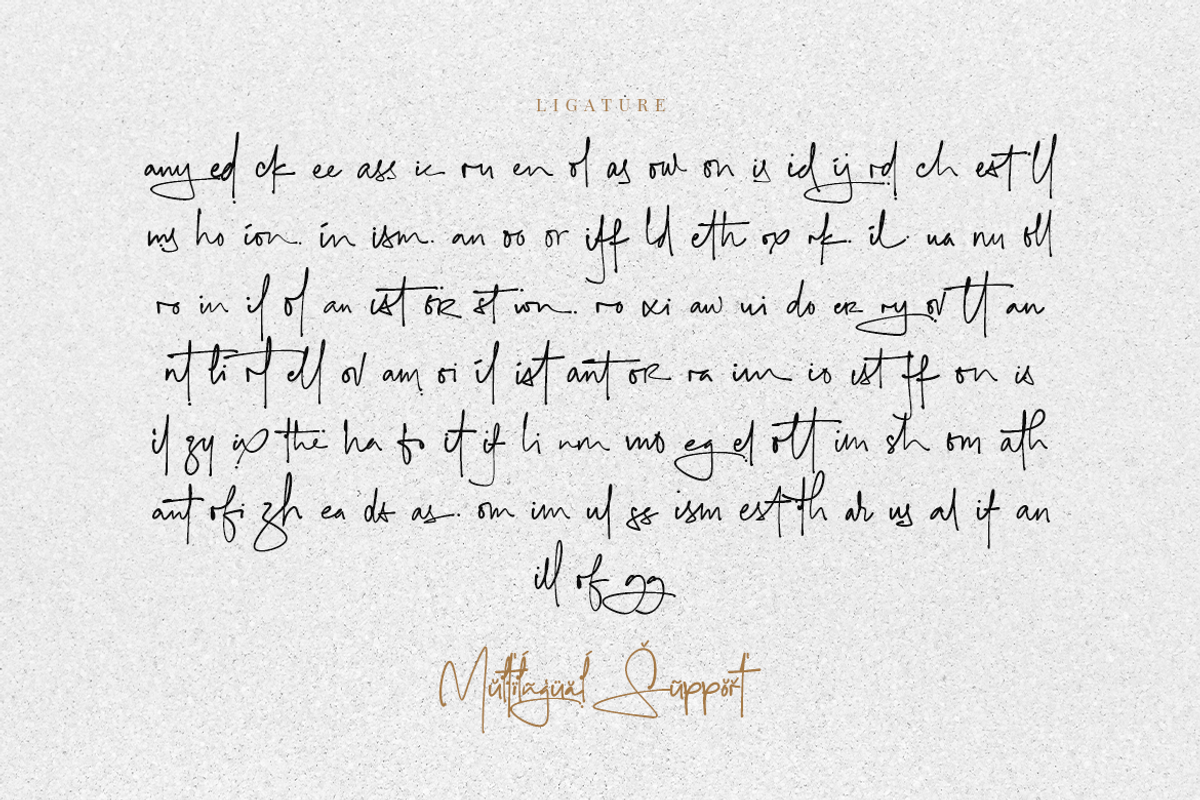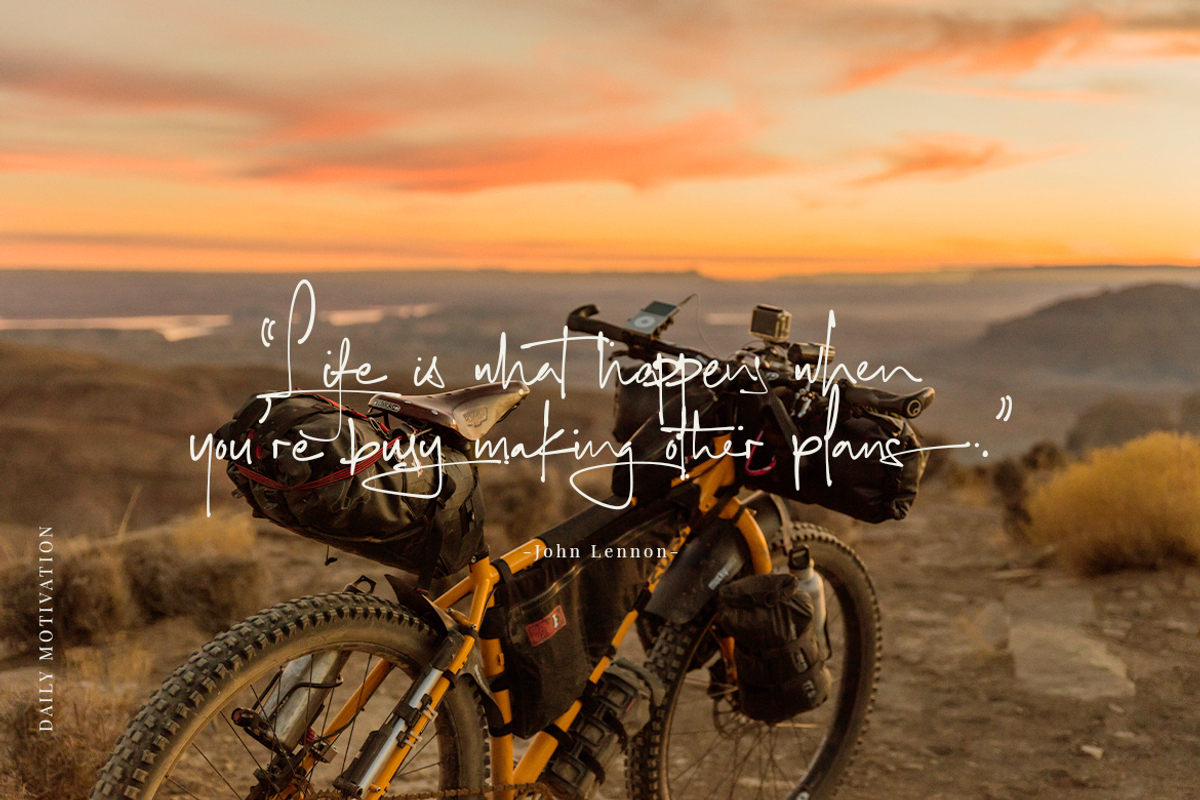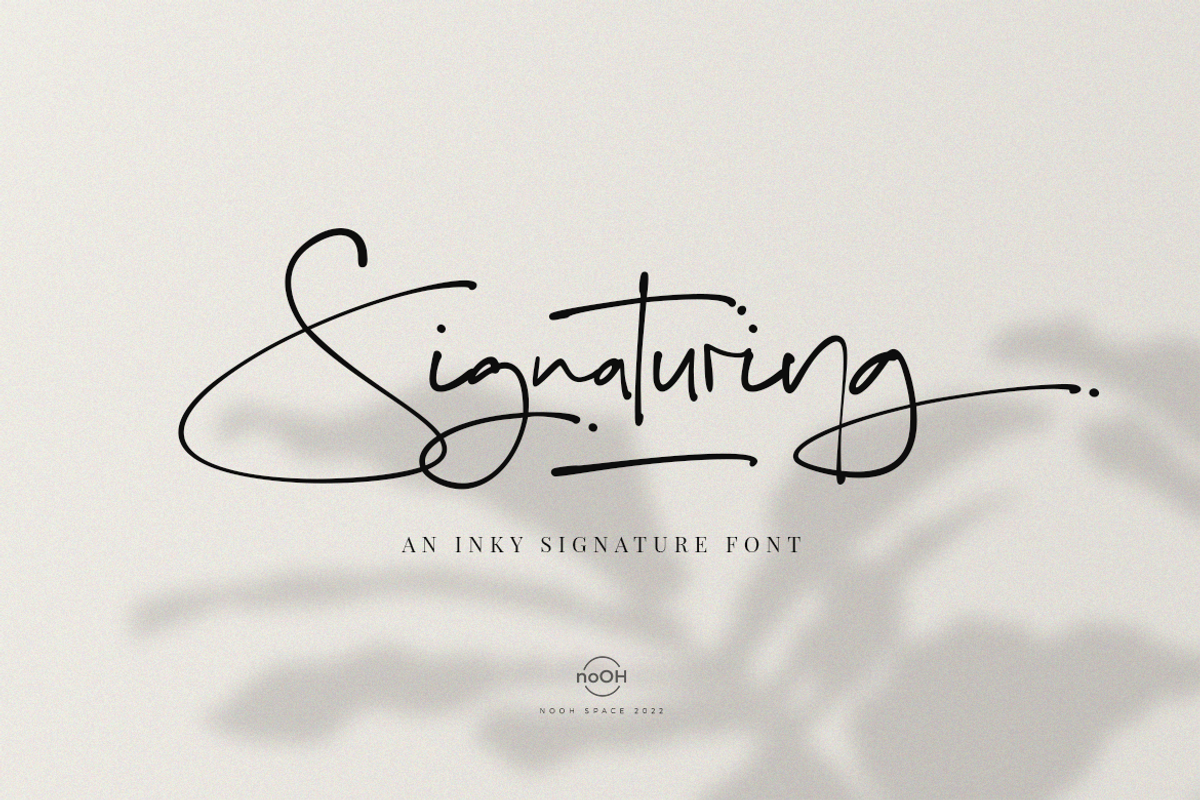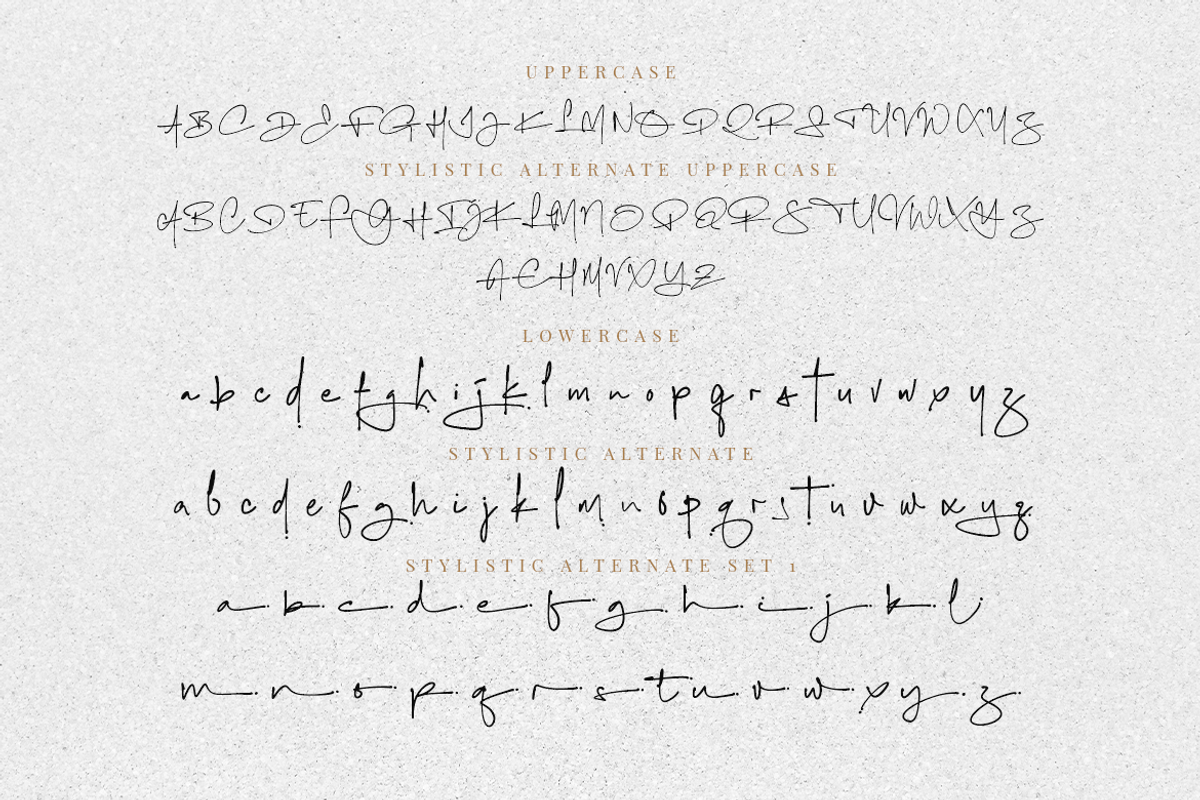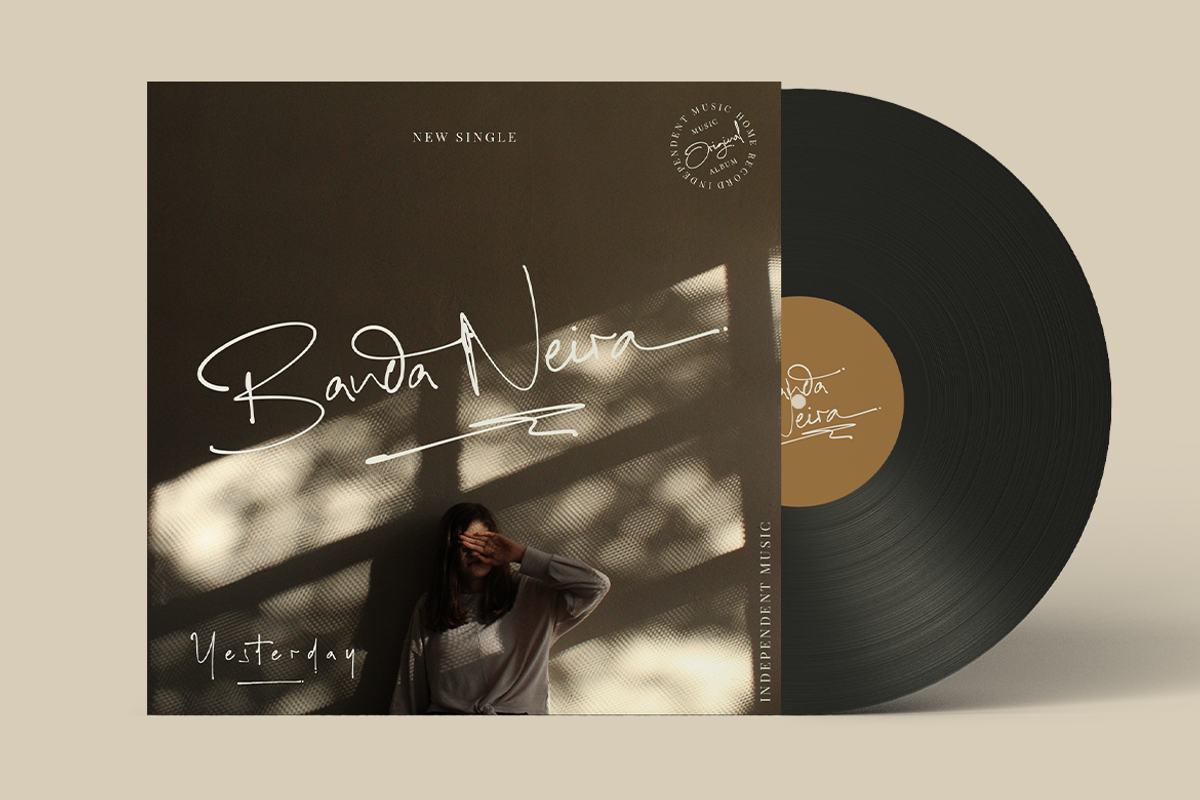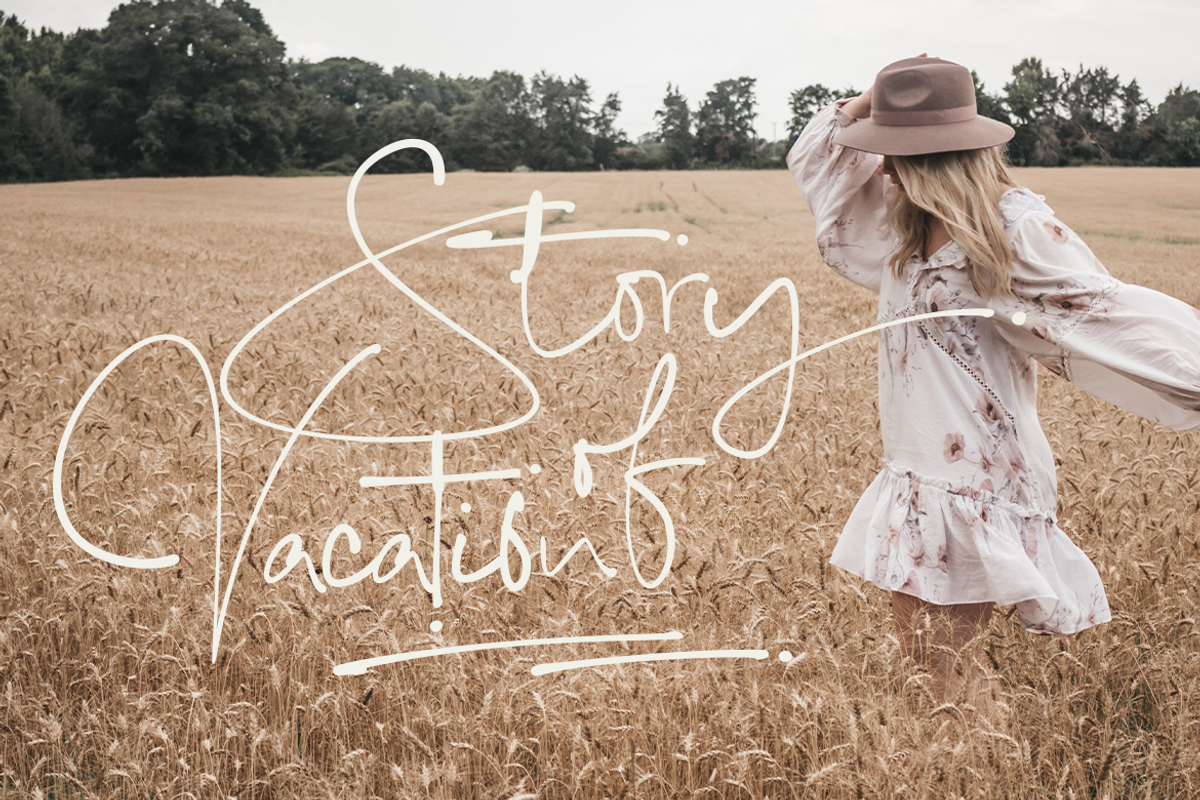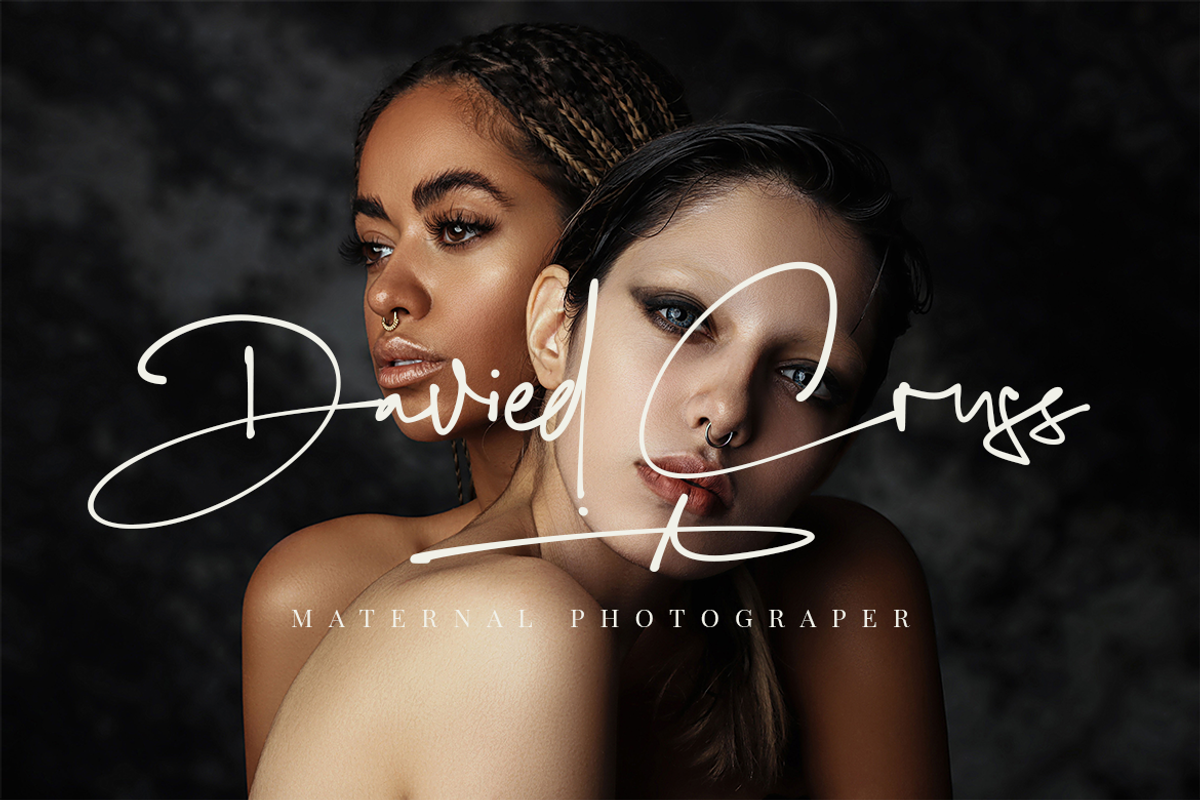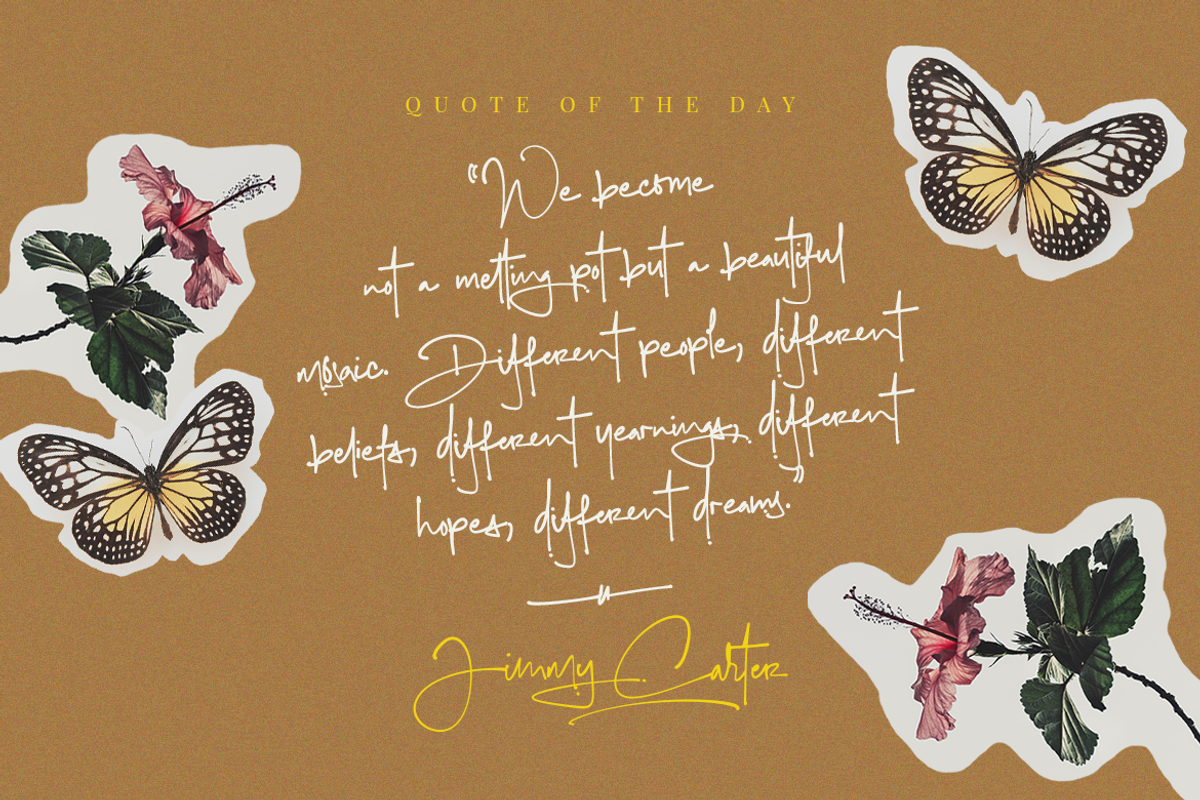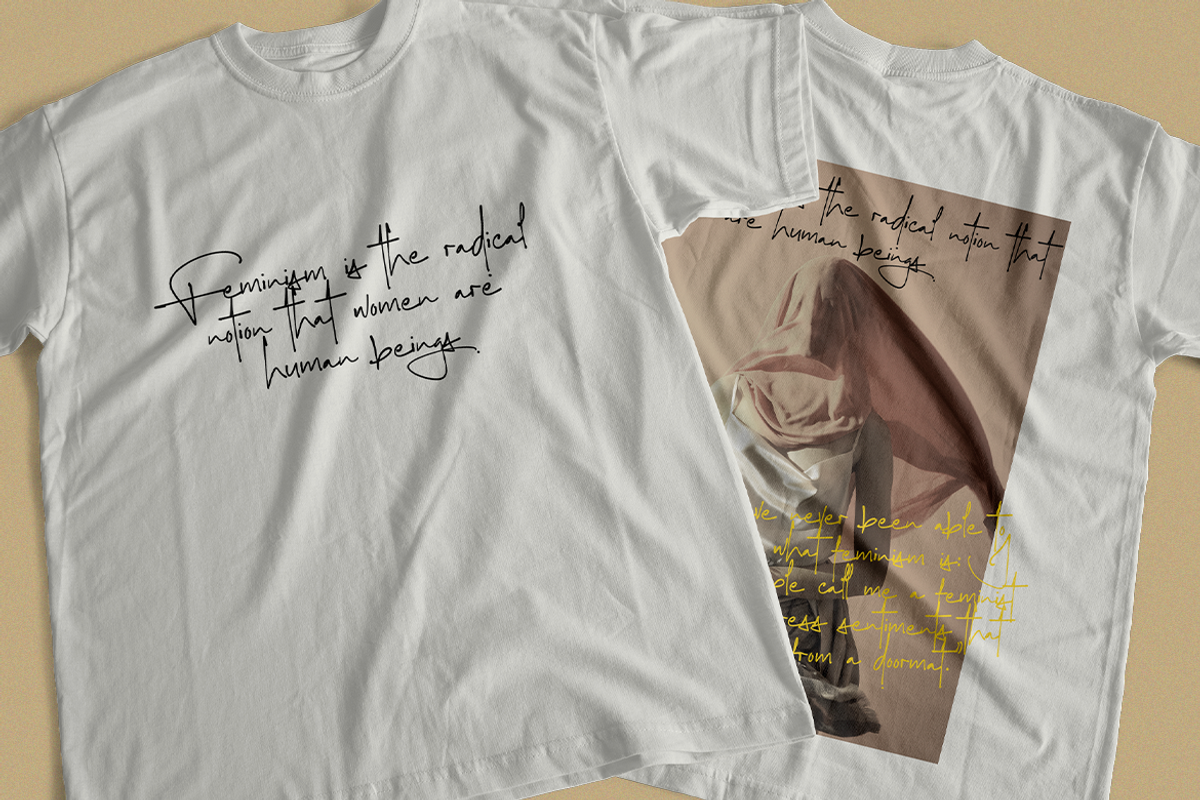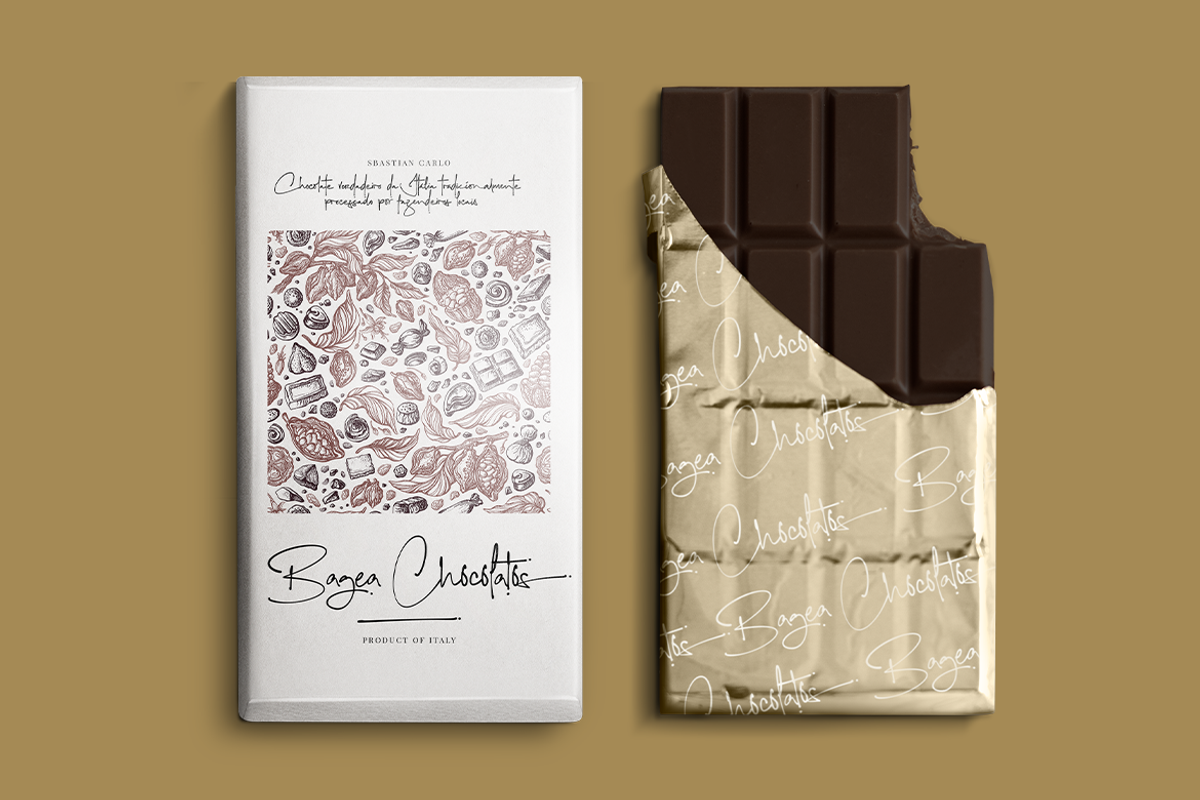
Signaturing - An Inky Handwritten
Signaturing is an Inky Signature font that is suitable for design projects; authentic theme, classic theme, wedding, branding, poster, quotes, display, apparel, eye-catching social media posts, and any other designs.
- Full uppercase and lowercase glyphs
- More Alternates, Ligatures, and Swashes
- Numbers, punctuations, and symbols